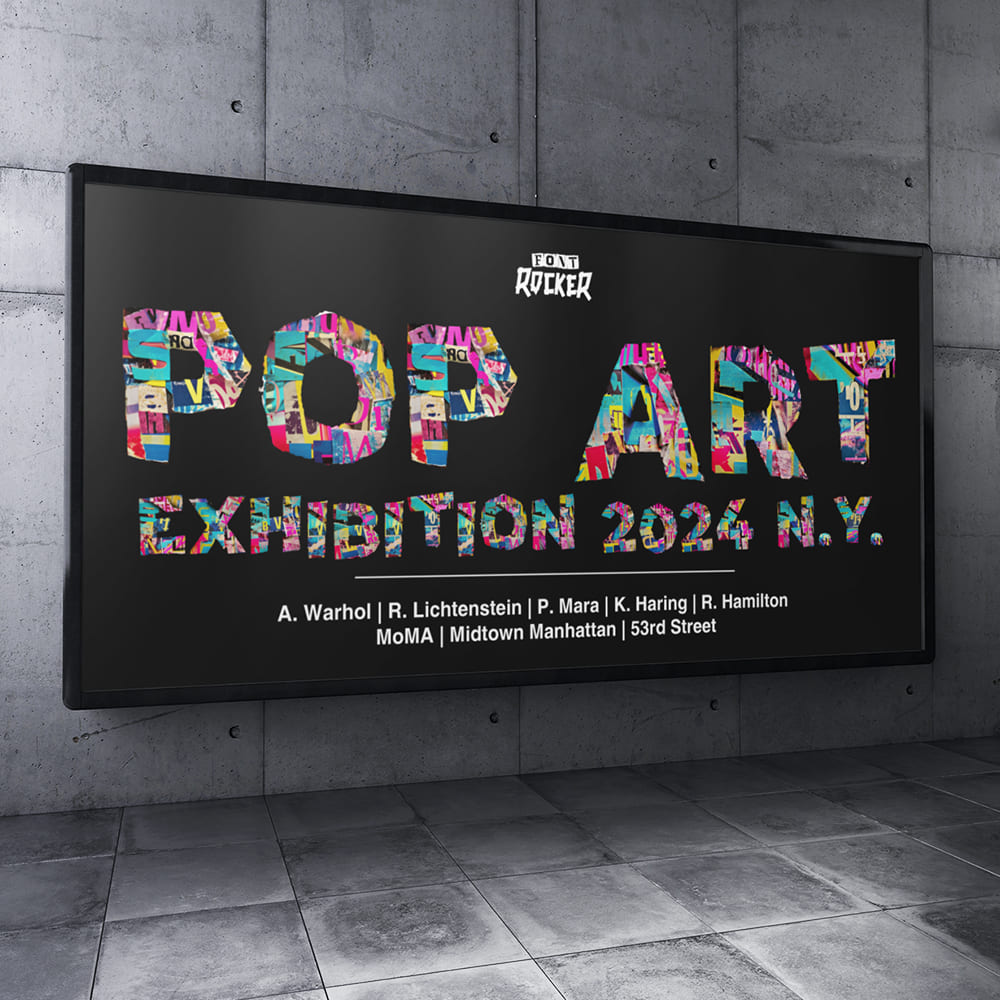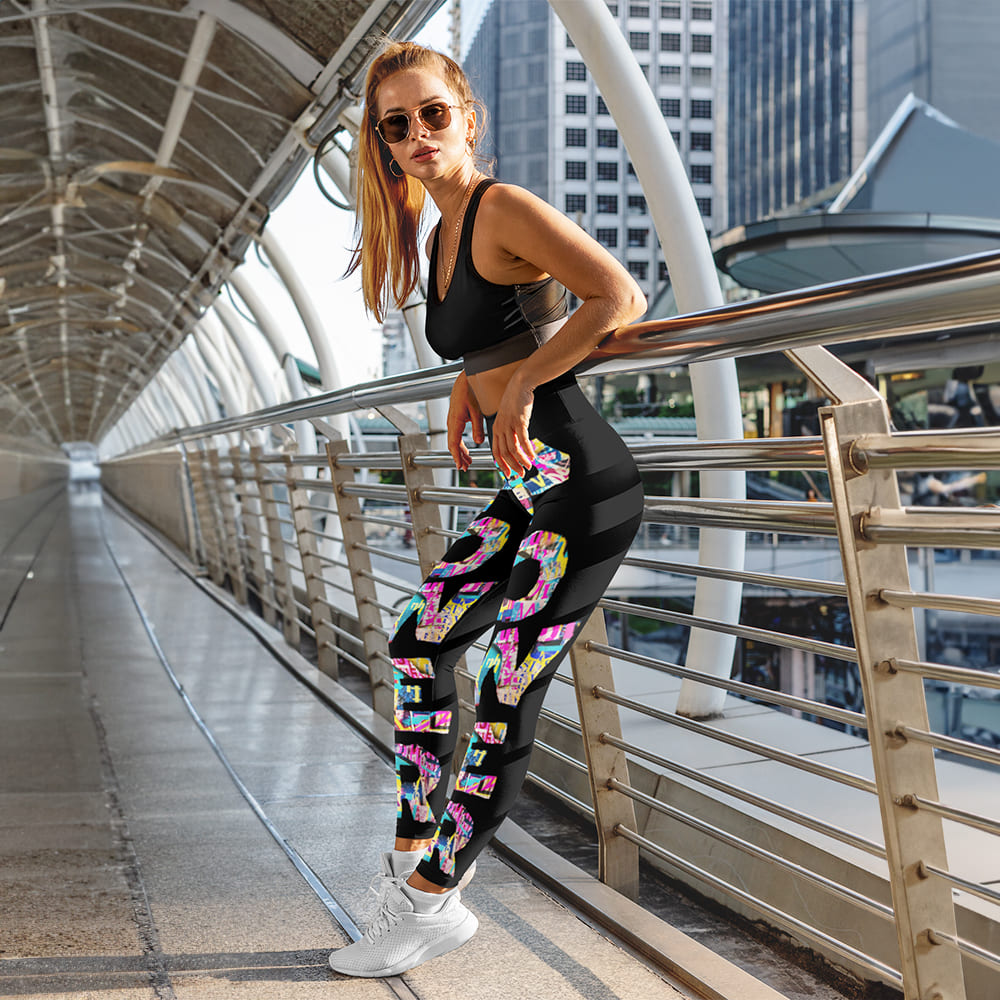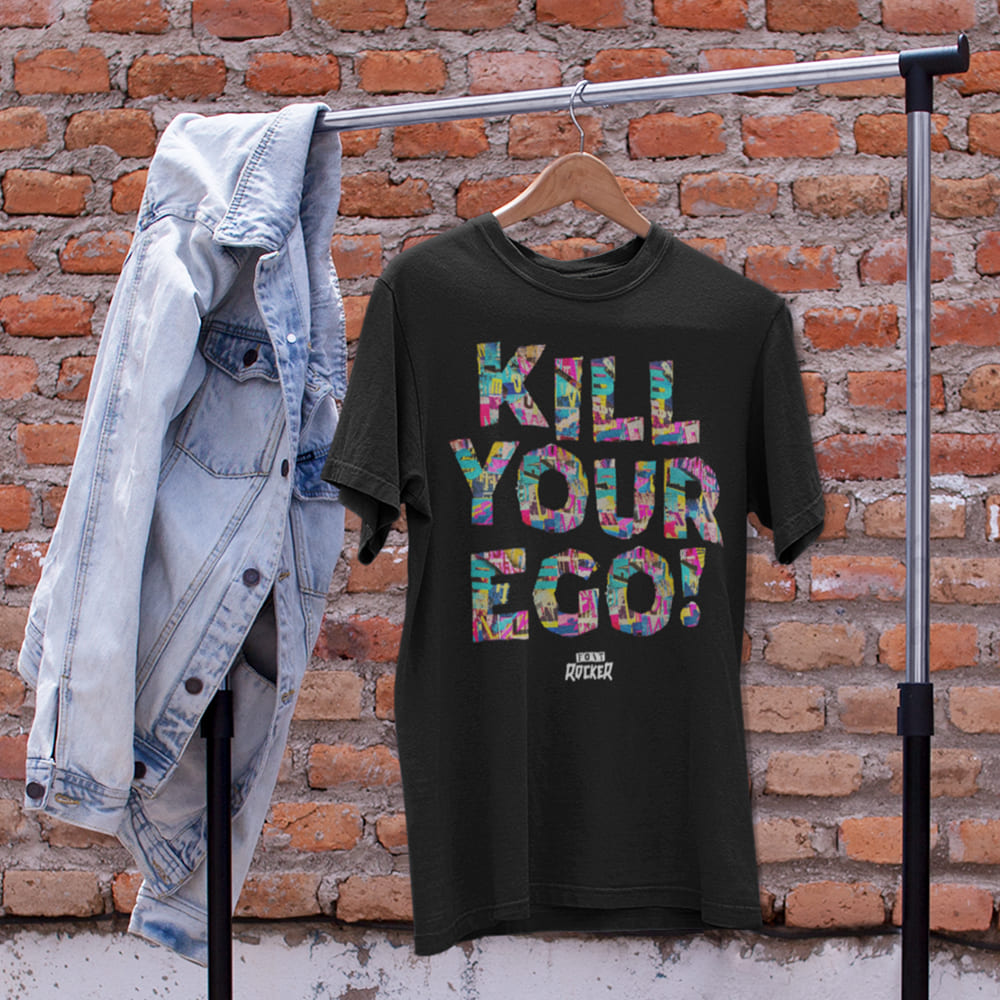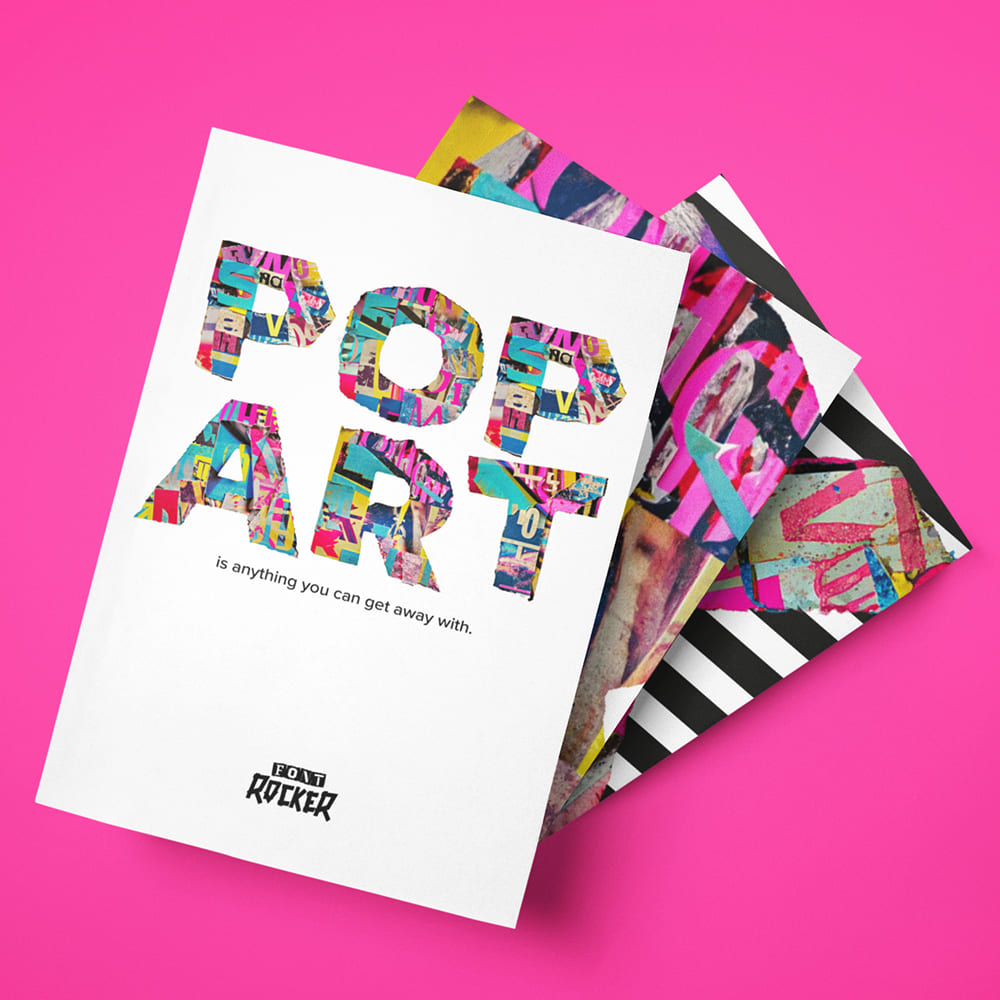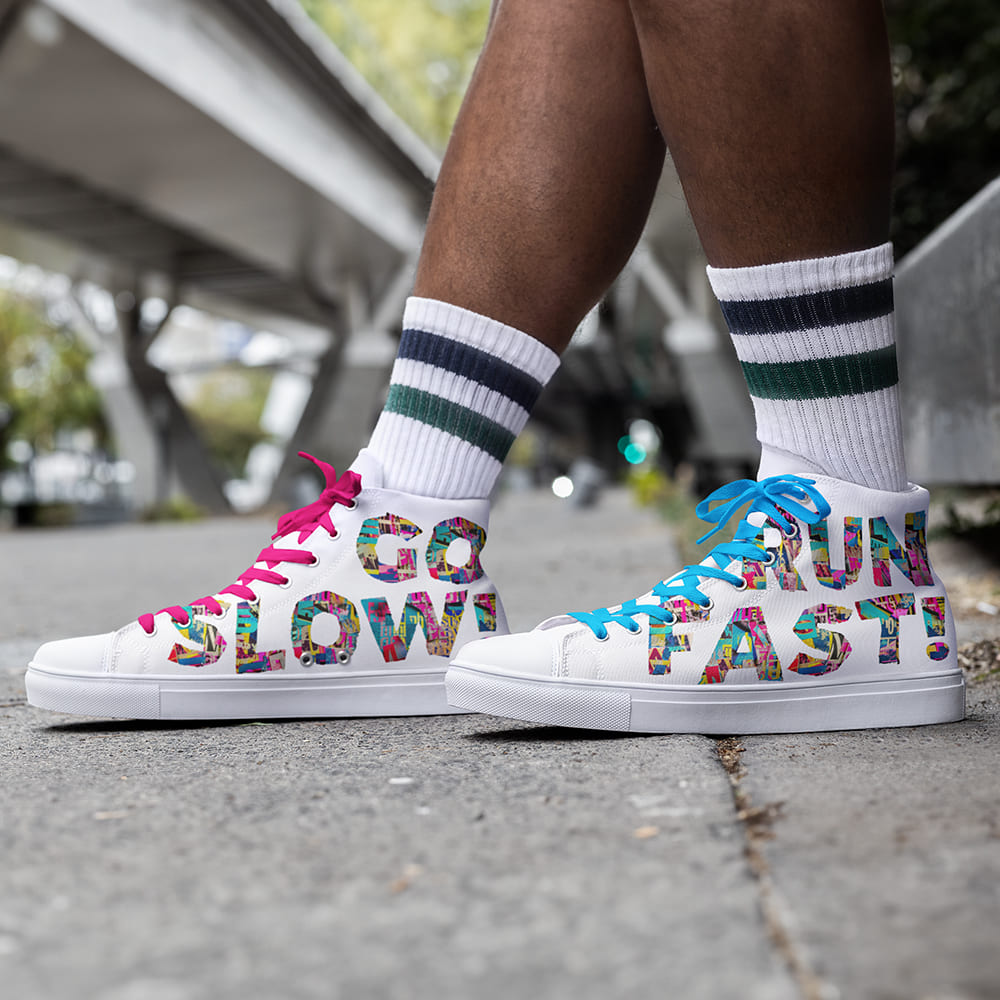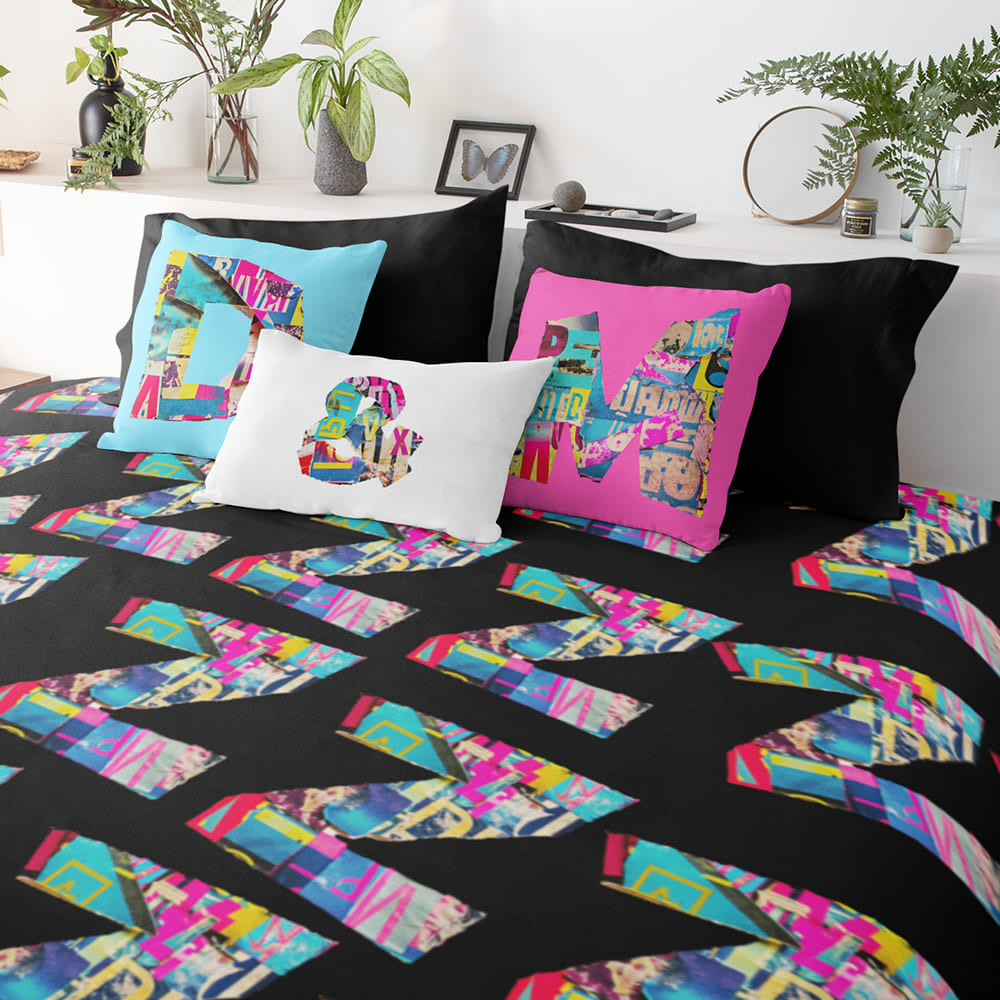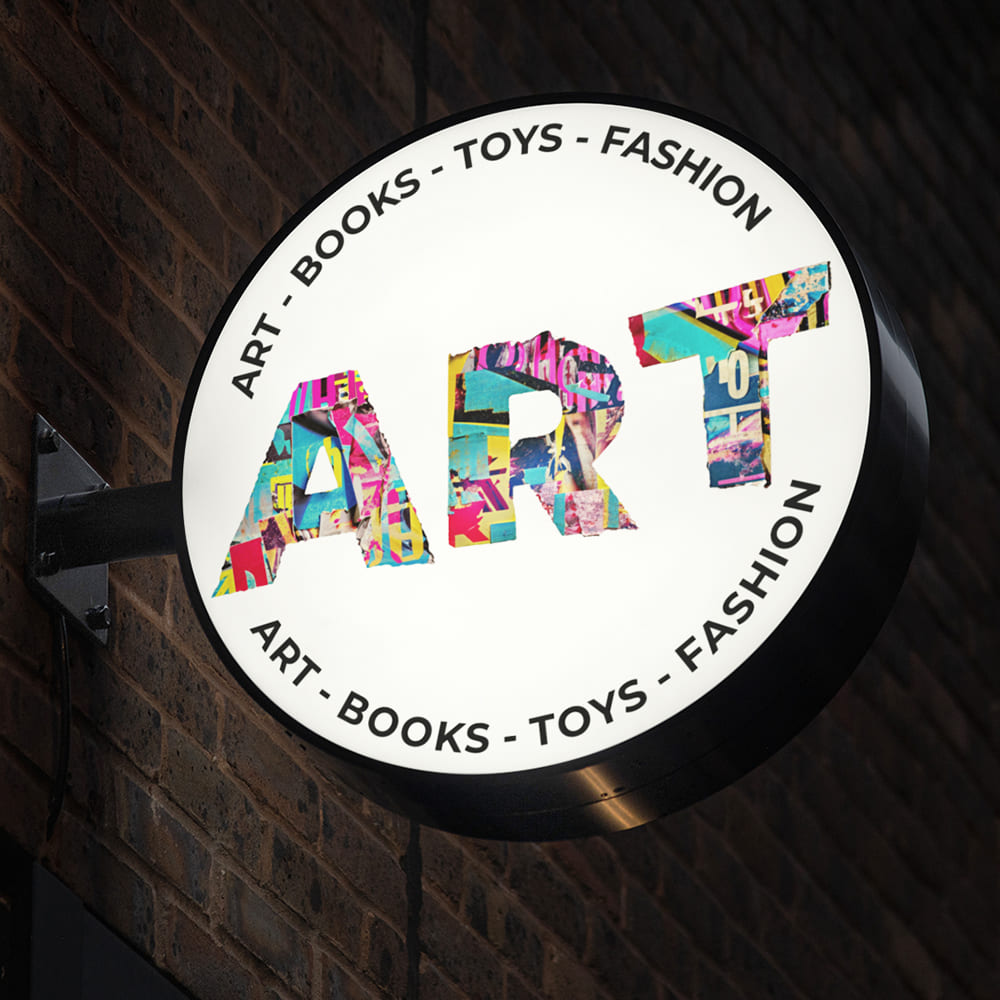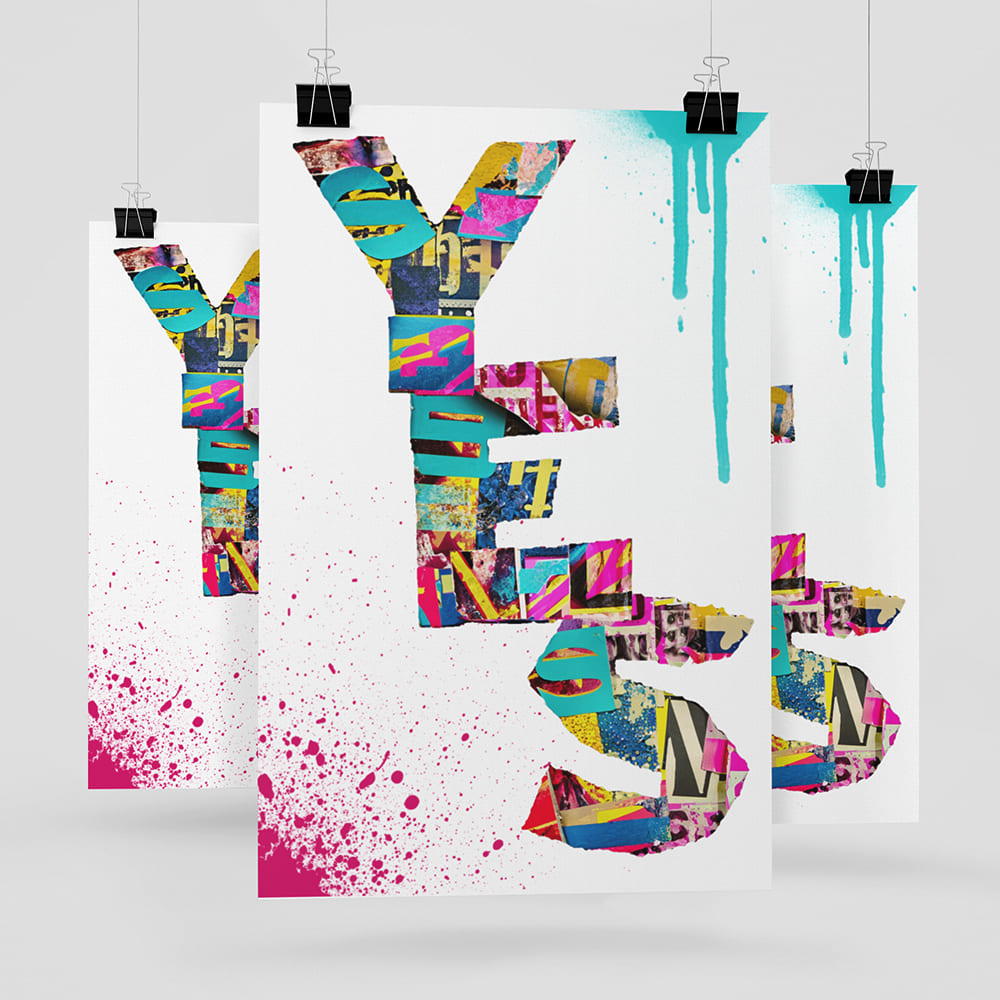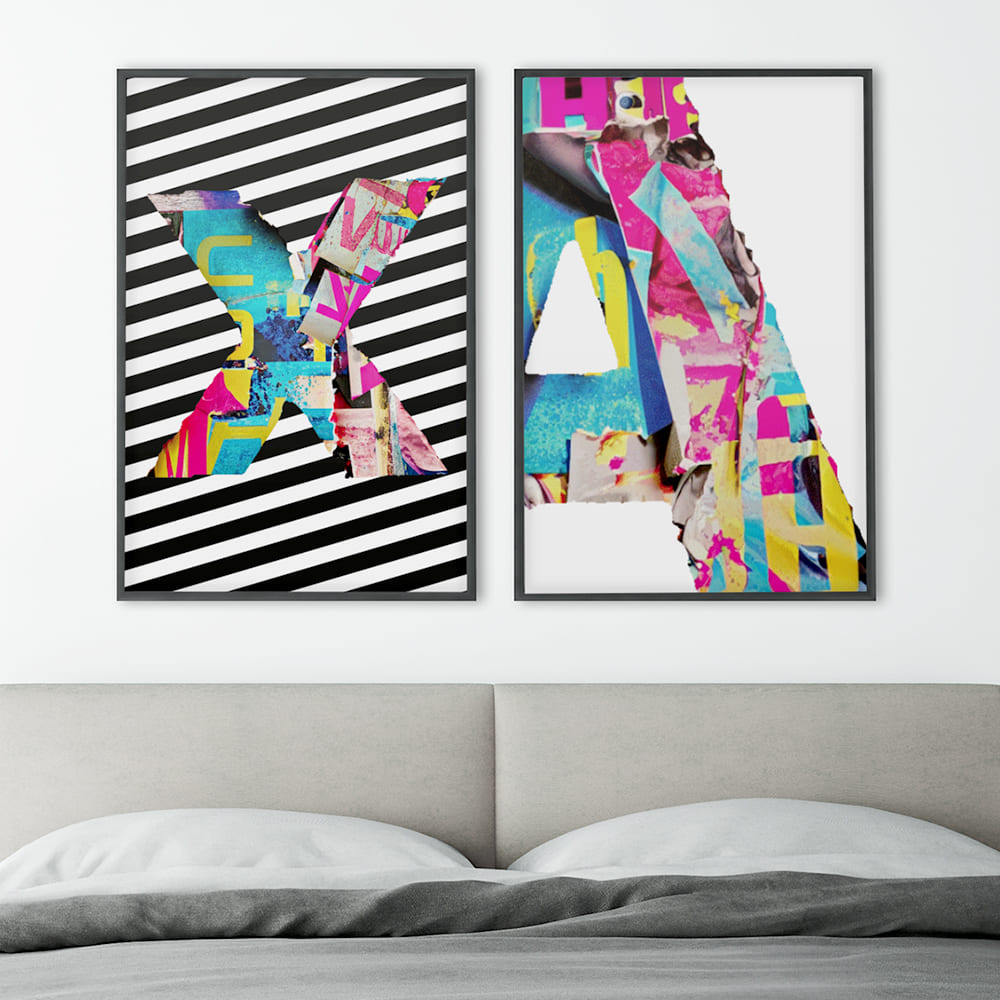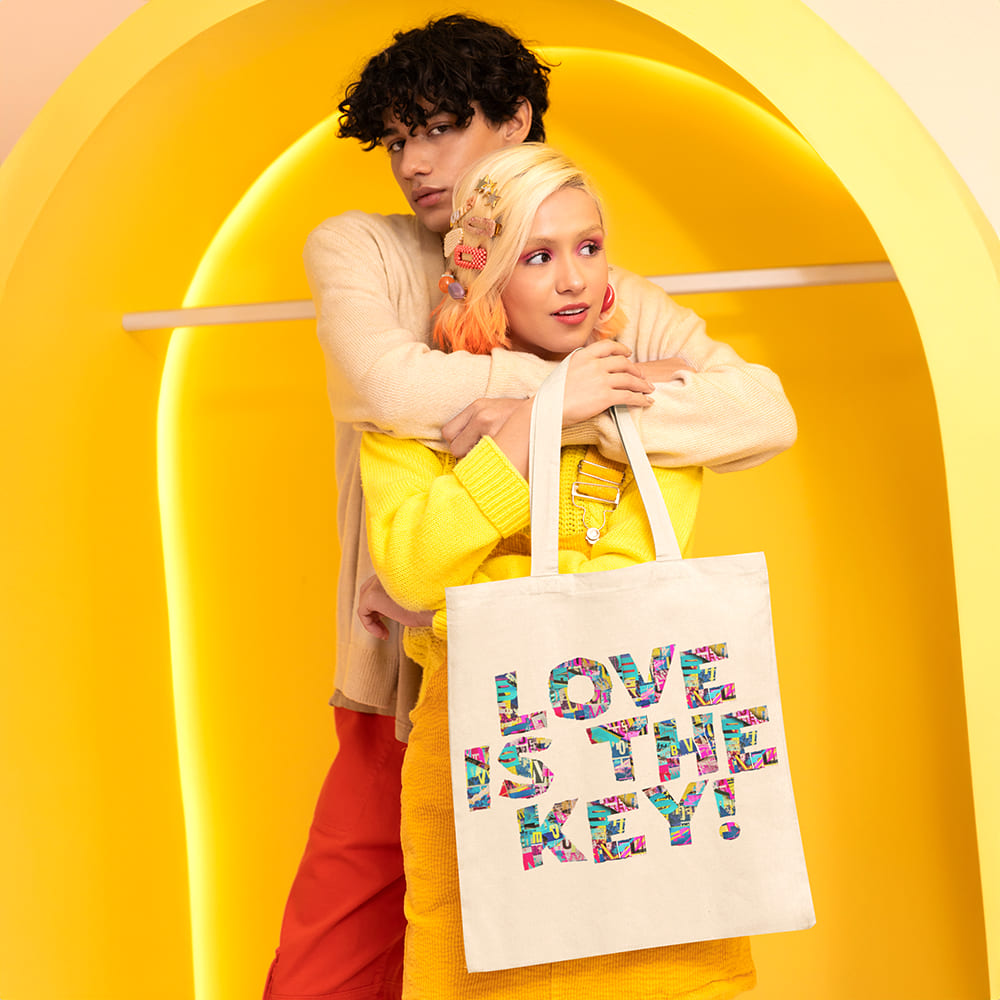
Pop Art Font
Colorful, Bold, Iconic 🖼️👨🎨🎨
Pop Art is more than just an art movement—it’s a statement. Inspired by Andy Warhol, Roy Lichtenstein, Keith Haring, and Pol Mara, the Pop Art Font captures this powerful, vibrant, and rebellious energy, bringing it straight into your design.
Why Choose the Pop Art Font?
🔹 Bold & Eye-Catching – With its strong lines, dynamic shapes, and vivid colors, this font demands attention—just like the legendary Pop Art masterpieces.
🔹 Perfect for Powerful Messages – Whether it’s advertising, social media, posters, or editorial designs, this font makes sure your project stands out with a unique visual identity.
🔹 Collage Aesthetic & Torn Paper Effect – Inspired by Warhol’s screen prints, Lichtenstein’s comics, Haring’s street art, and Pol Mara’s mixed-media works, this font carries the handcrafted charm of collages and torn paper textures—ideal for designs that need a hand-finished look with real character.
Make a Statement with the Pop Art Font
Turn your design into a canvas of modern Pop Art! This font helps you create iconic, expressive, and high-energy visuals that people won’t forget.
🔹 Make it loud. Make it unforgettable. Make it Pop Art.
🔹 Choose bold. Choose vibrant. Choose the Pop Art Font.